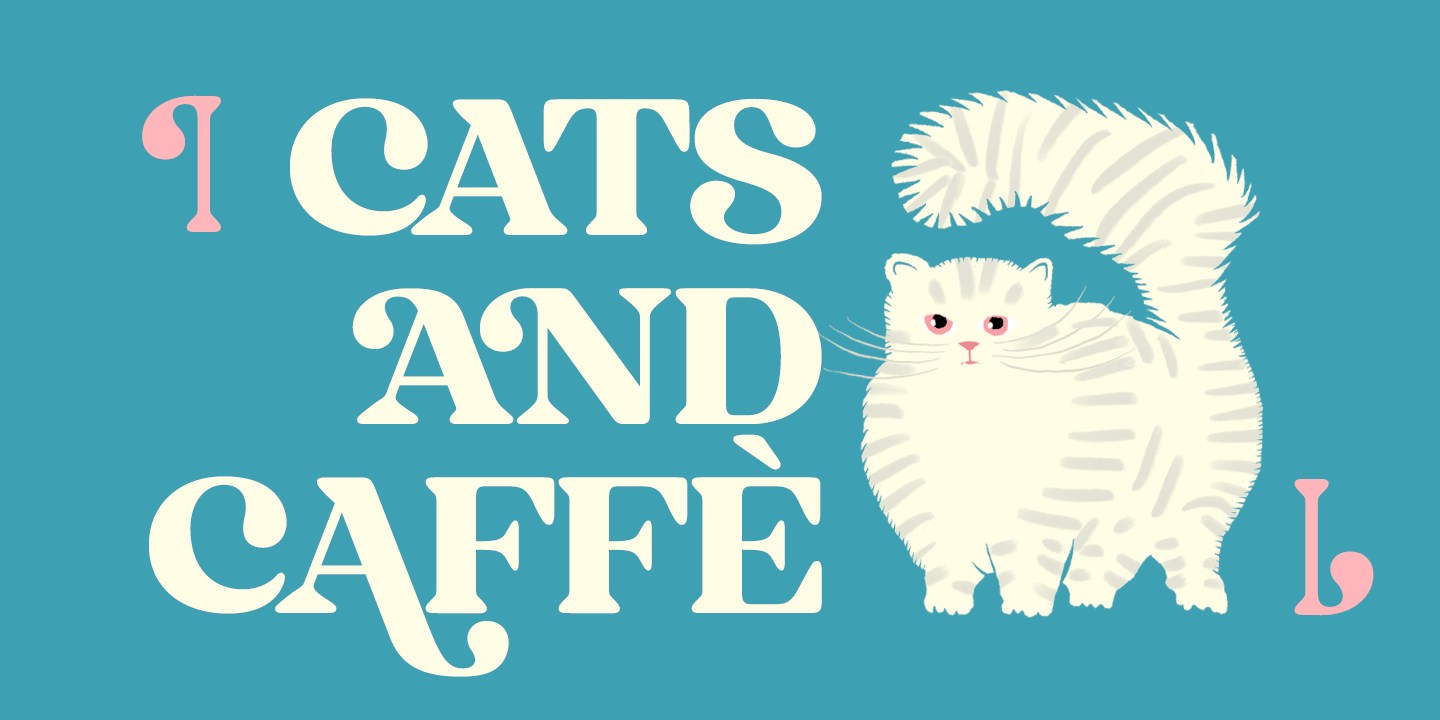
About Hello Monday
Hello Monday is a bold and wide vintage style serif font with a friendly charm and a reminiscence of a warm nostalgic feeling. Hello Monday is a great typeface for contemporary graphic design with that certain feeling of familiarity. It works well on…